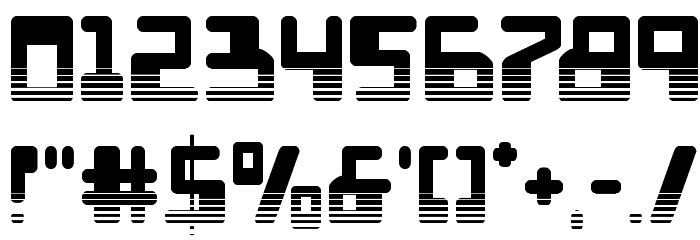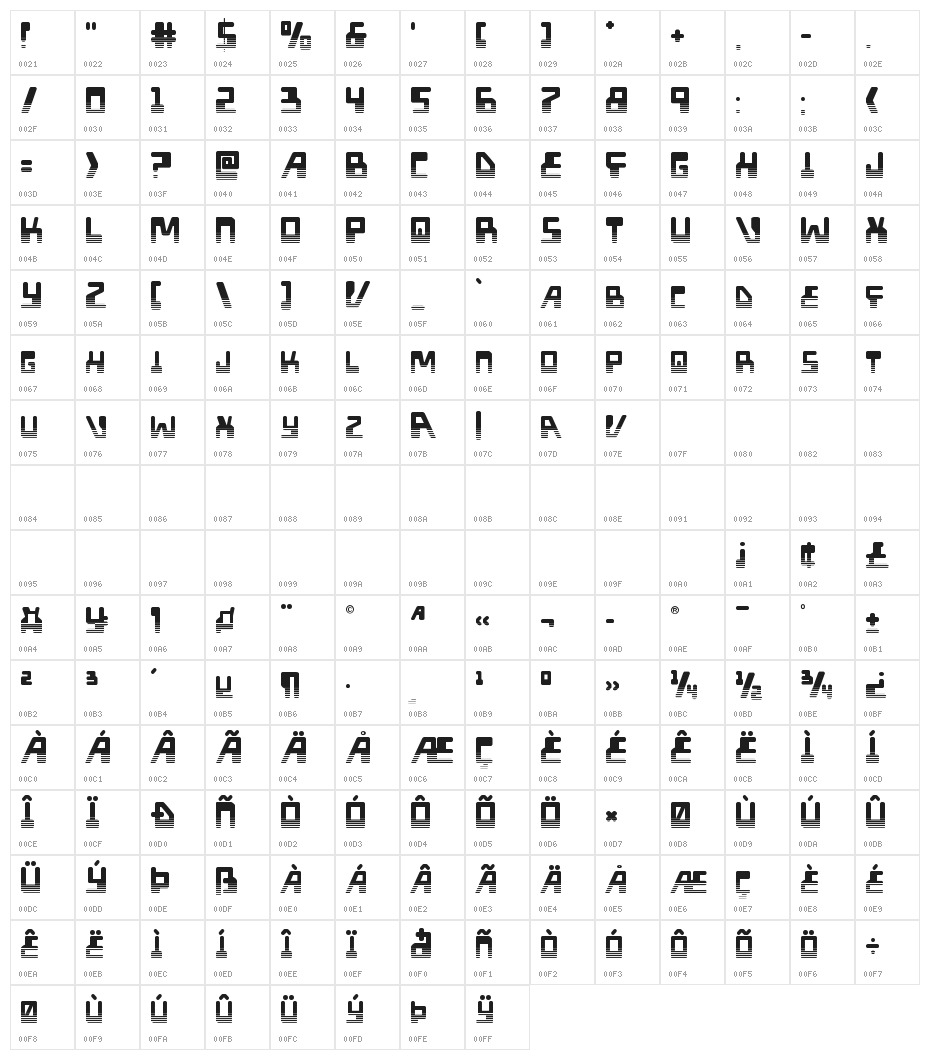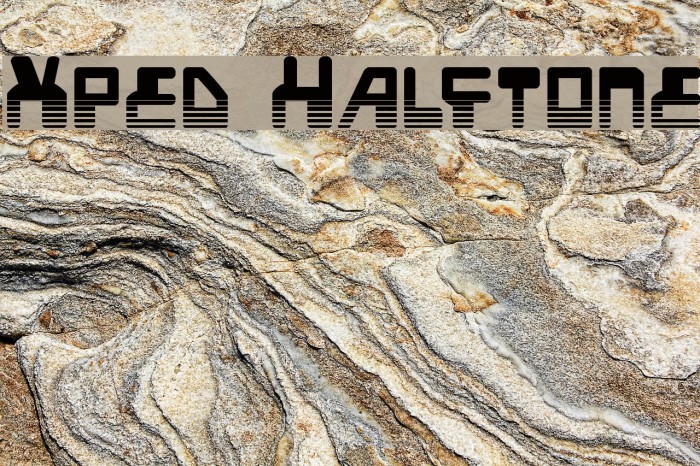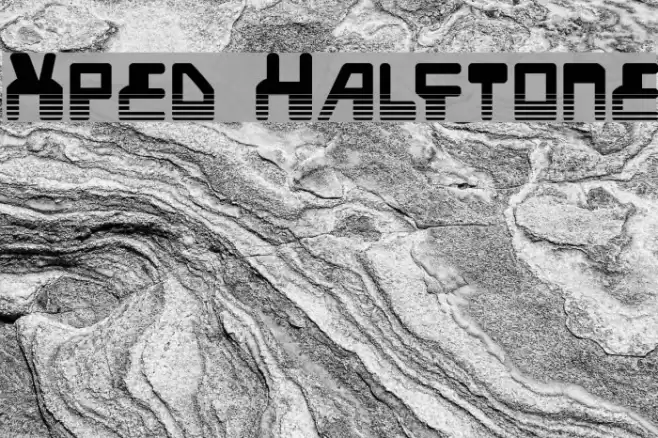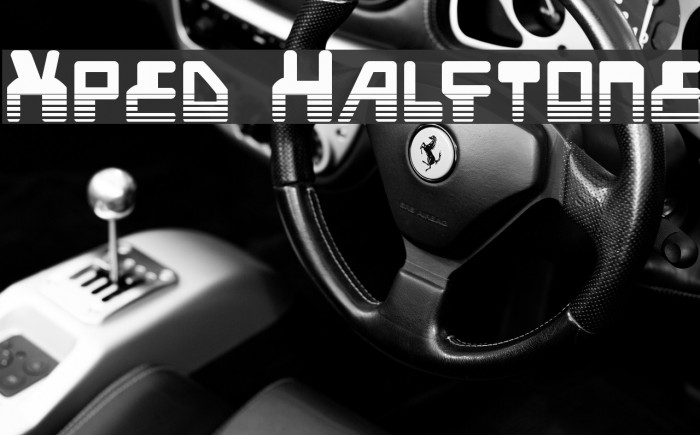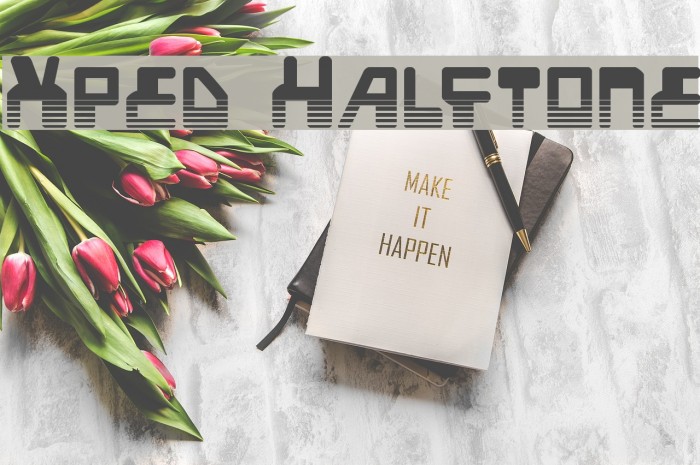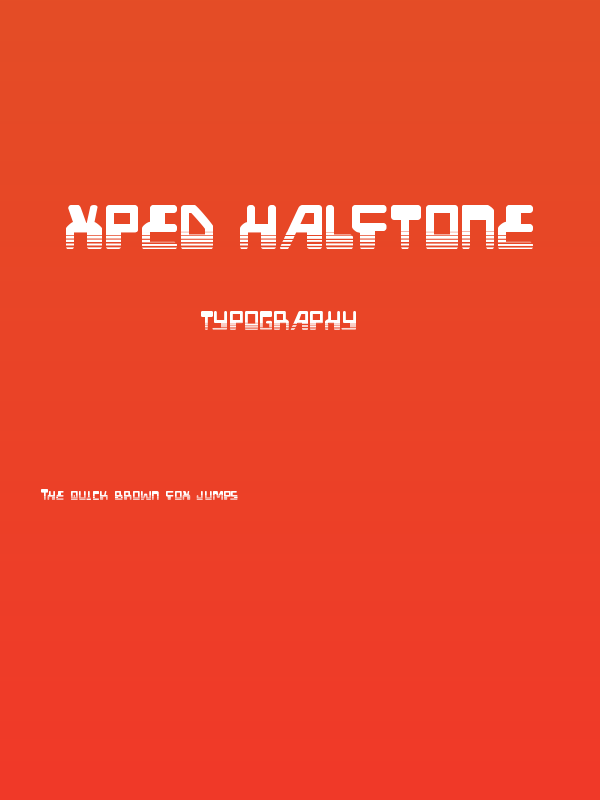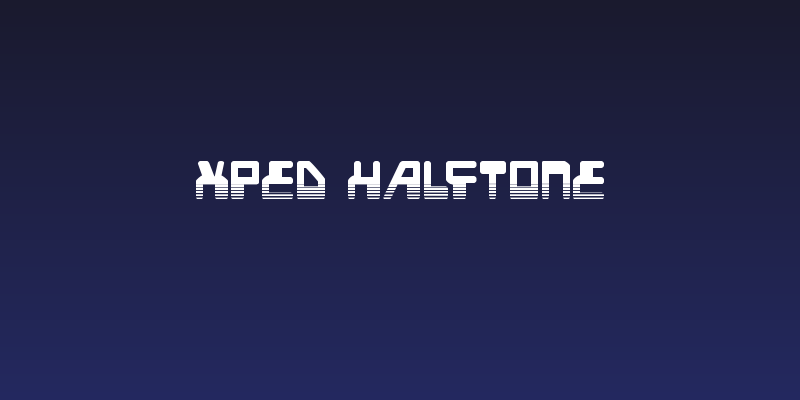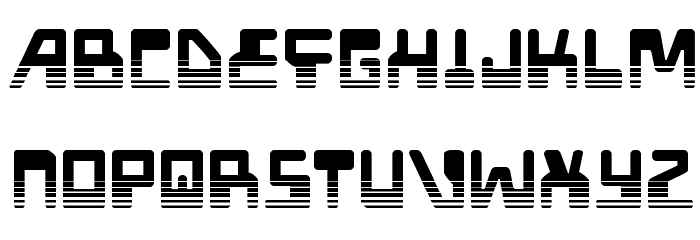
Xped Halftone Font
Xped Halftone Description
This font features a unique halftone effect, where each character is composed of horizontal lines that create a gradient-like appearance. The design is bold and geometric, with a futuristic and digital aesthetic. The uppercase and lowercase letters maintain a consistent style, with the halftone lines becoming denser towards the bottom of each character. Numbers and special characters follow the same pattern, ensuring uniformity across the typeface. The font's distinct style makes it stand out, ideal for projects that require a modern and eye-catching look.